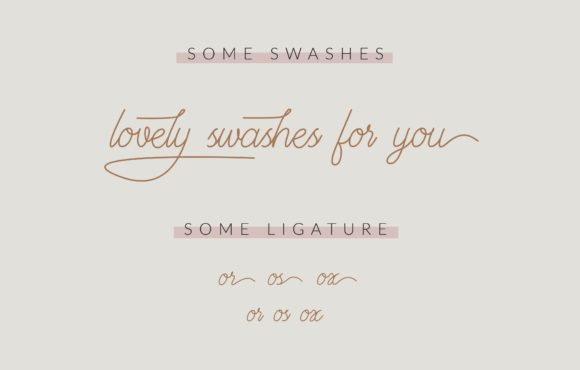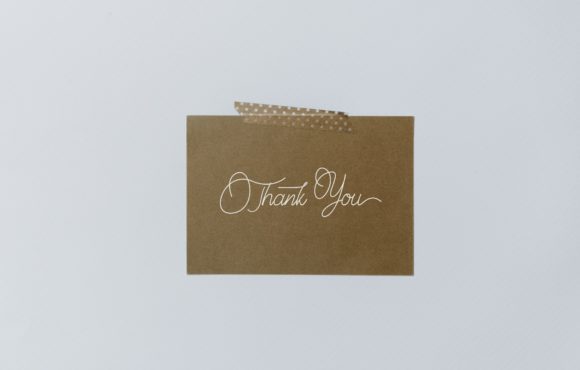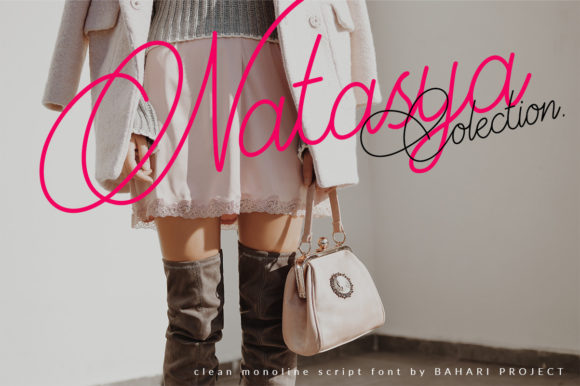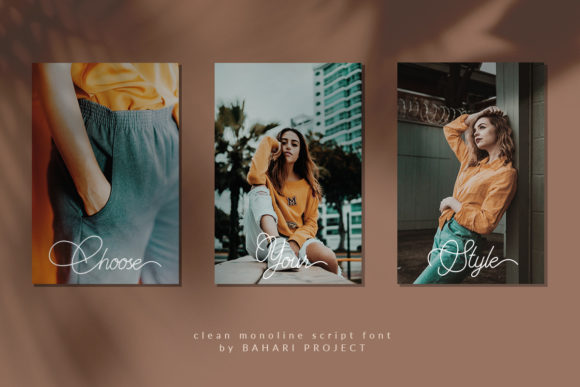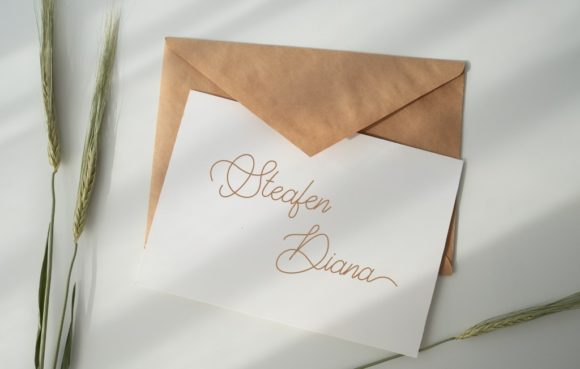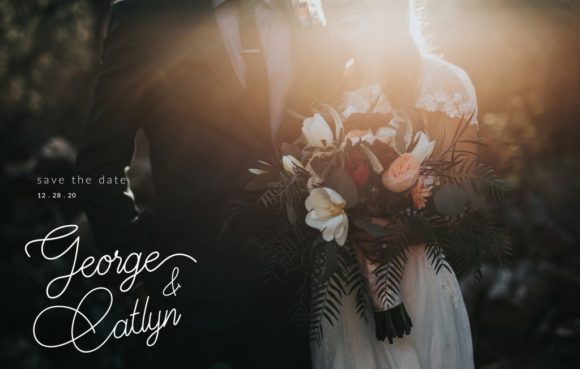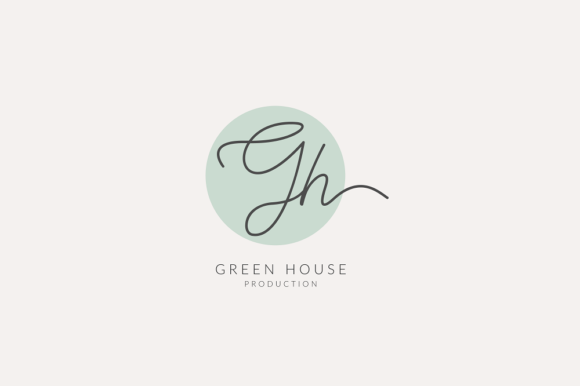
Monoright Font
About Monoright Font
This is Monoright, a clean and delicate script font. This font is suitable for branding, lettering, wedding invitation, title, logos, and more. Monoright can bring a simple minimalist atmosphere, very clean and eye-catching.
Monoright is PUA encoded which means you can access all of the glyphs and swashes with ease!